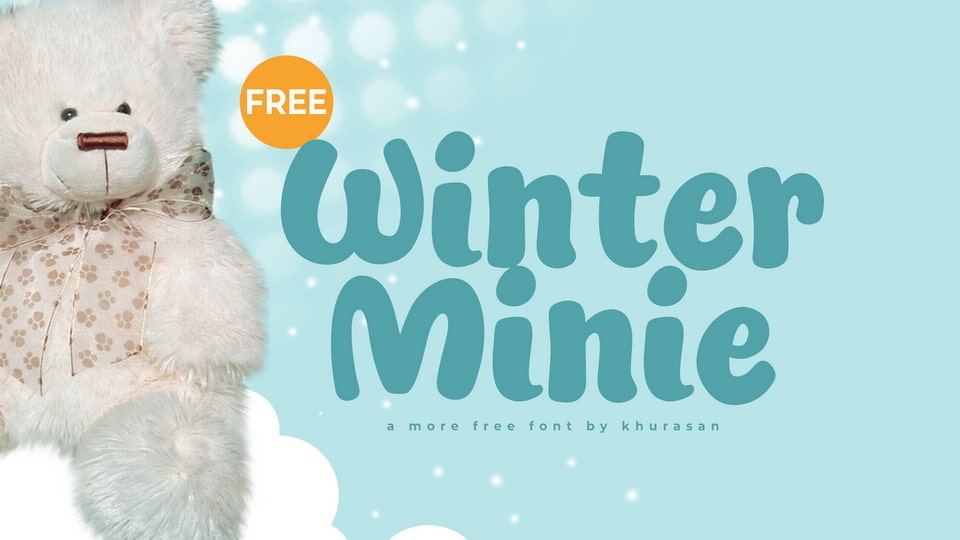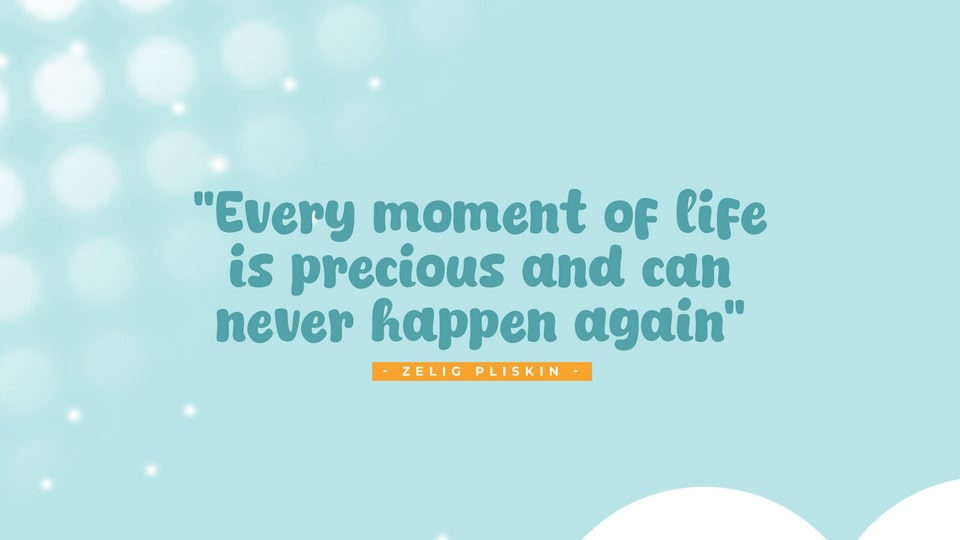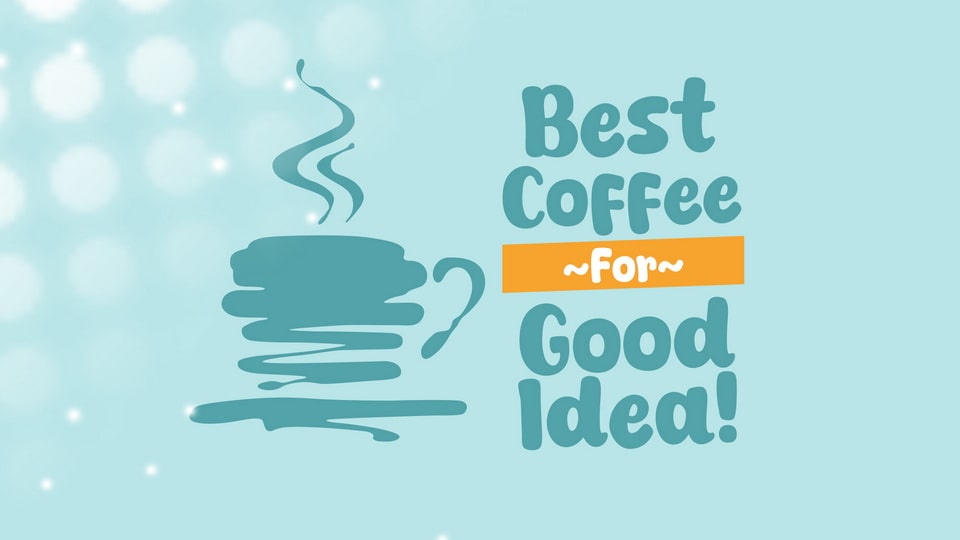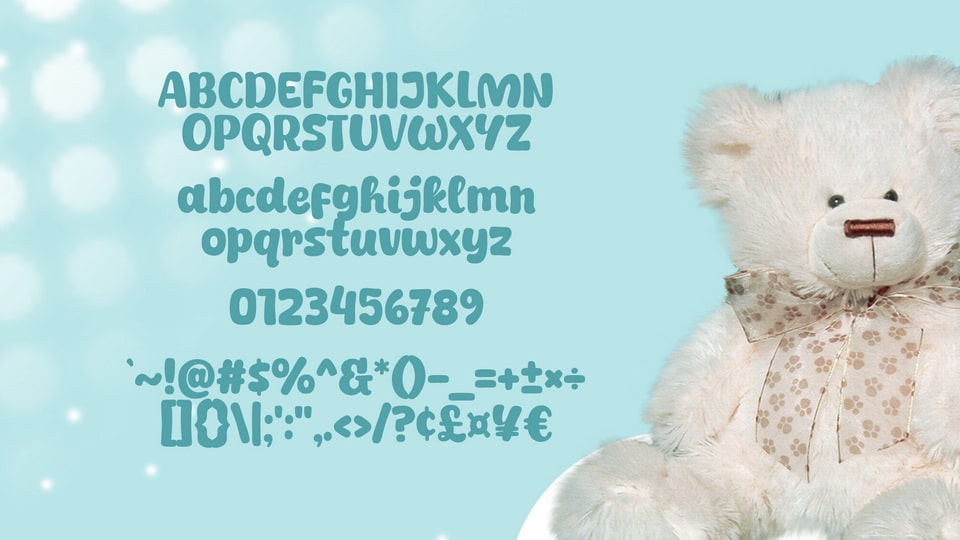
Winter Minie is a playful and cute hand-drawn cartoon font that radiates personality and charm. Its rounded shapes and cheerful strokes make it perfect for bringing a sense of fun and whimsy to your designs. The font’s hand-crafted style adds an endearing, imperfect quality that feels lively and approachable.
Ideal for children’s books, playful branding, fun posters, and whimsical packaging, Winter Minie font is designed to delight and engage audiences of all ages. Its versatility makes it a go-to choice for any project that calls for a happy, lighthearted vibe.
Use Winter Minie font to infuse your creations with energy, joy, and a dash of cartoonish charm!